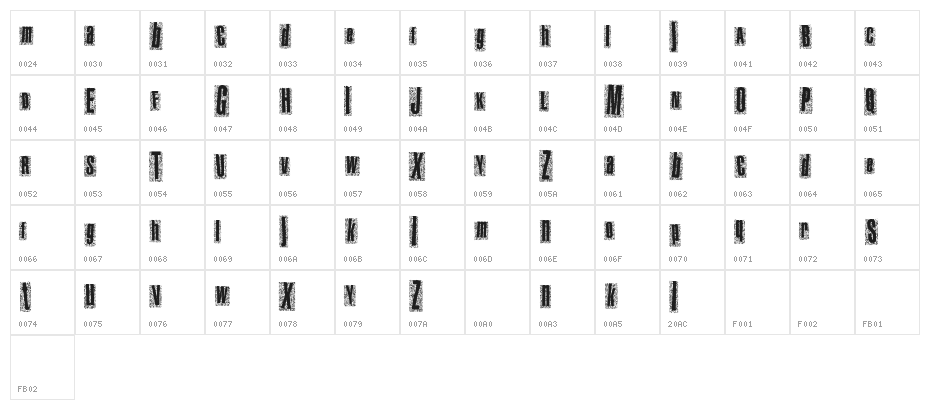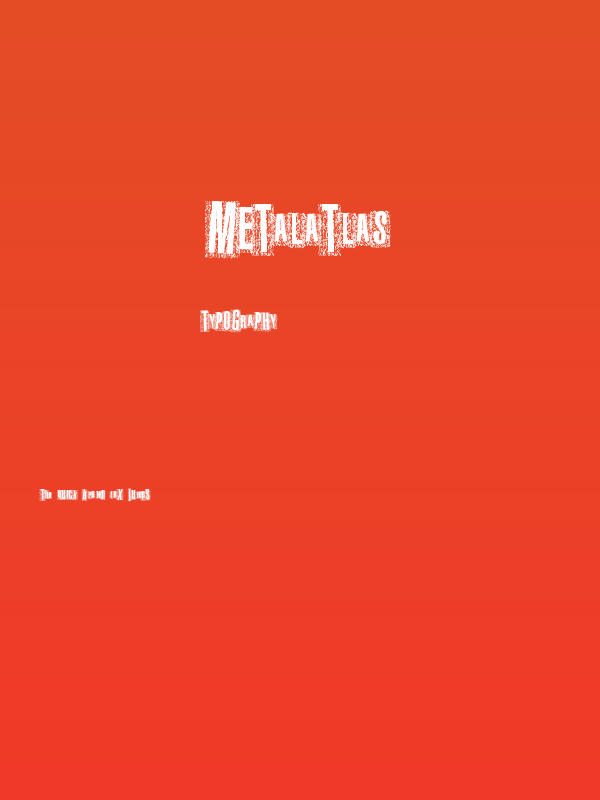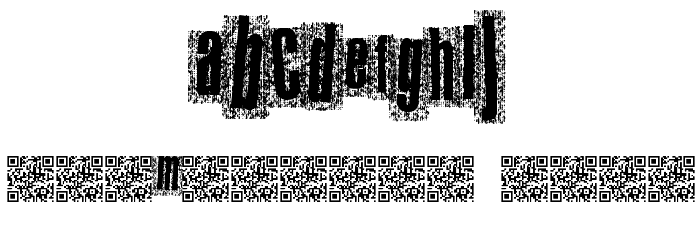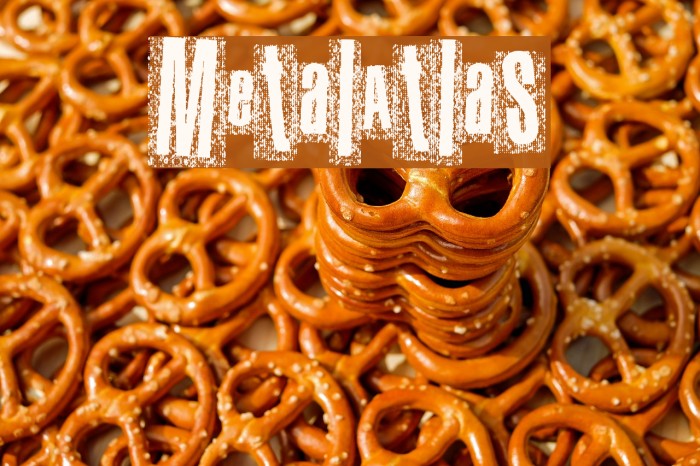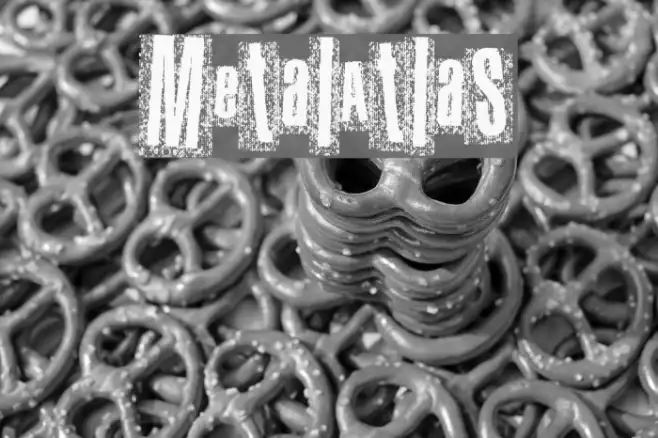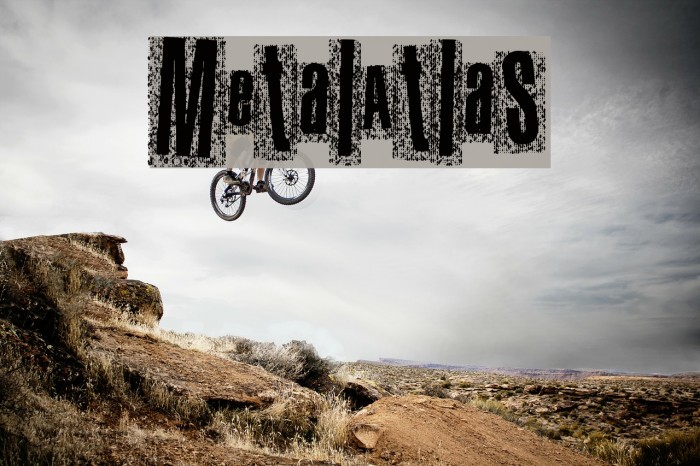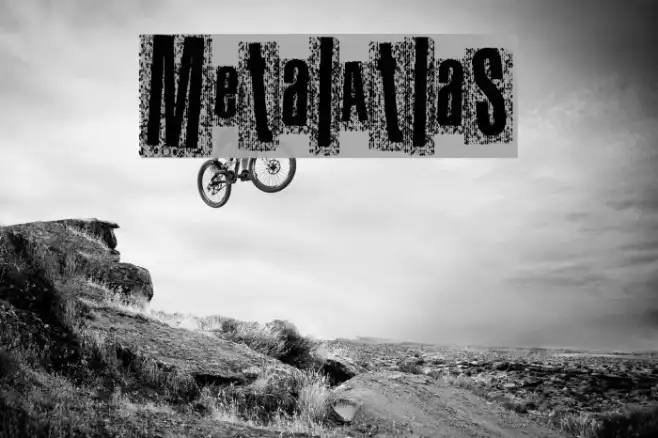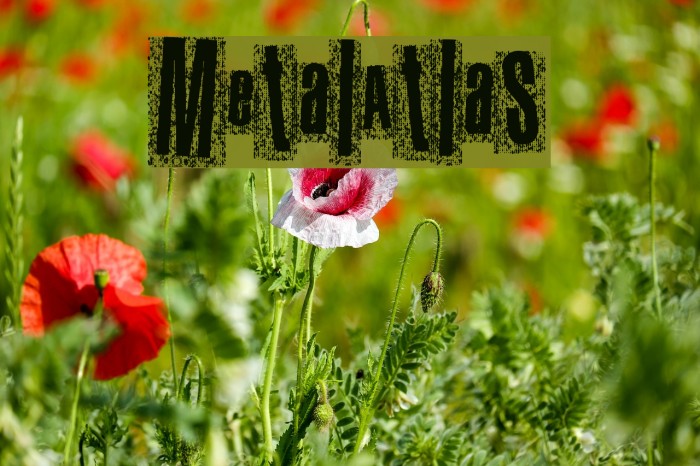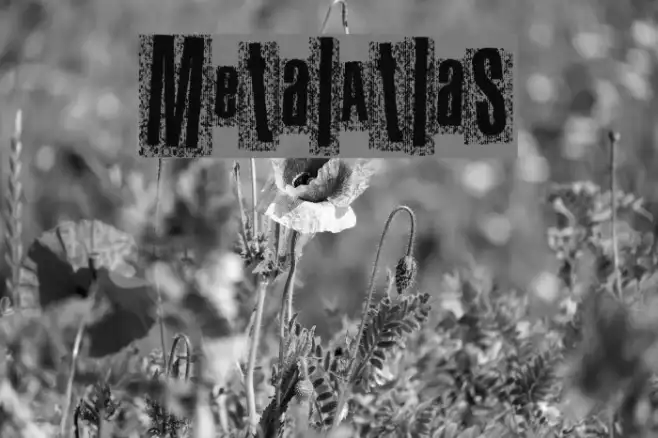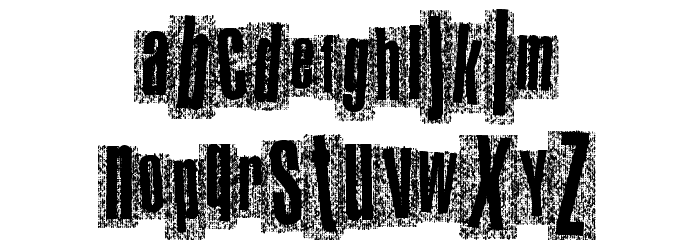
MetalAtlas Font
MetalAtlas Description
This font features a bold, distressed style with a textured appearance that mimics a worn or grunge effect. The characters are tall and slightly condensed, giving them a strong and impactful presence. The rough edges and irregularities in the stroke add a sense of ruggedness and vintage appeal. The uppercase and lowercase letters maintain a consistent style, while the numbers and special characters complement the overall aesthetic. This font is ideal for projects that require a bold statement or an edgy, industrial look.
| Proposed Projects | Ideal for music album covers, posters, branding for edgy or industrial-themed products, and any design requiring a bold, vintage look. |